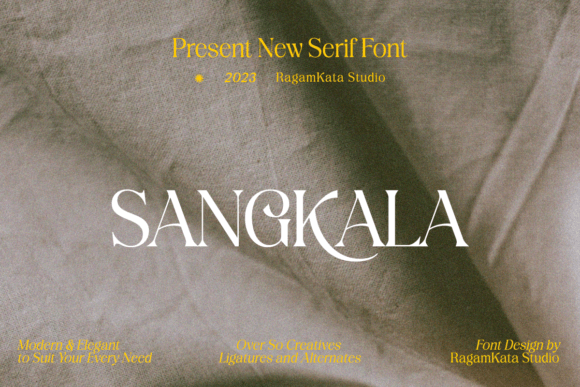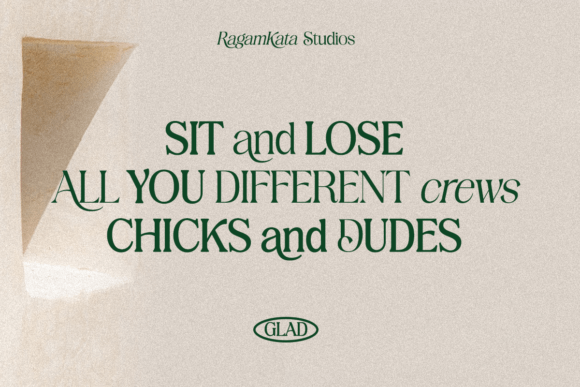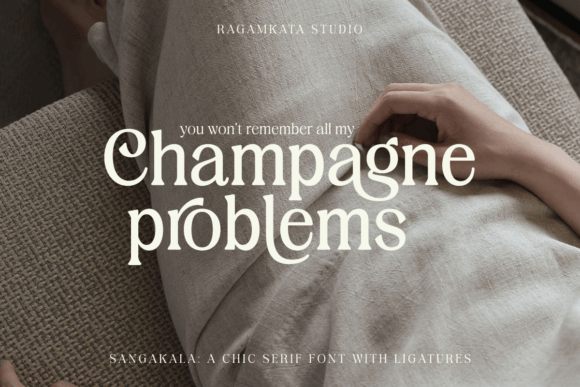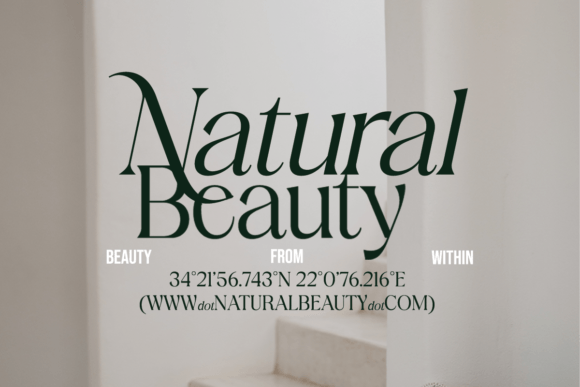
Sangkala Font: Elegant Serif Typography for Logo Design
About the Sangkala Font
From logos to headlines, the Sangkala Font is the perfect choice for making a lasting impression. Sangkala is a modern and classic serif typeface with its own unique style & modern look. This typeface is perfect for an elegant & luxurious logo, book or movie title design, fashion brands, magazines, clothes, lettering and quotes.
Sangkala Font Usage Examples
Sangkala Font Example